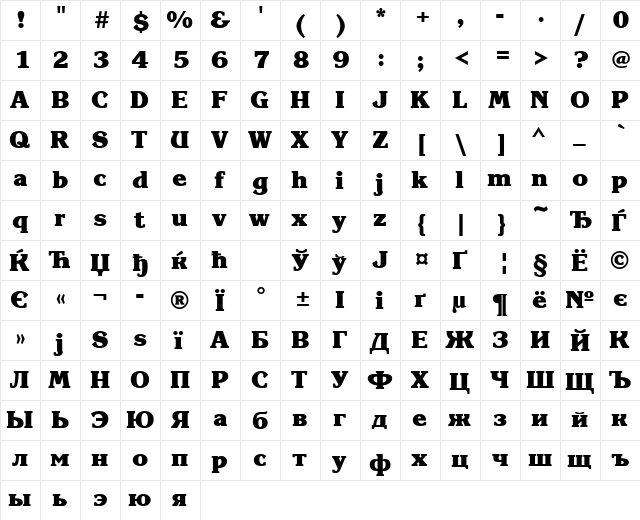
KorinnaBlackCTT Bold
Design Context for KorinnaBlackCTT Typeface
KorinnaBlackCTT takes a measured approach to typography — its balanced proportions and neutral character make it a reliable workhorse for both digital and print work. The heavy weight commands attention and anchors typographic hierarchies.